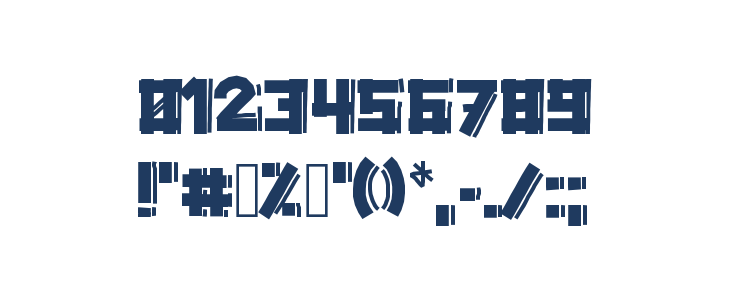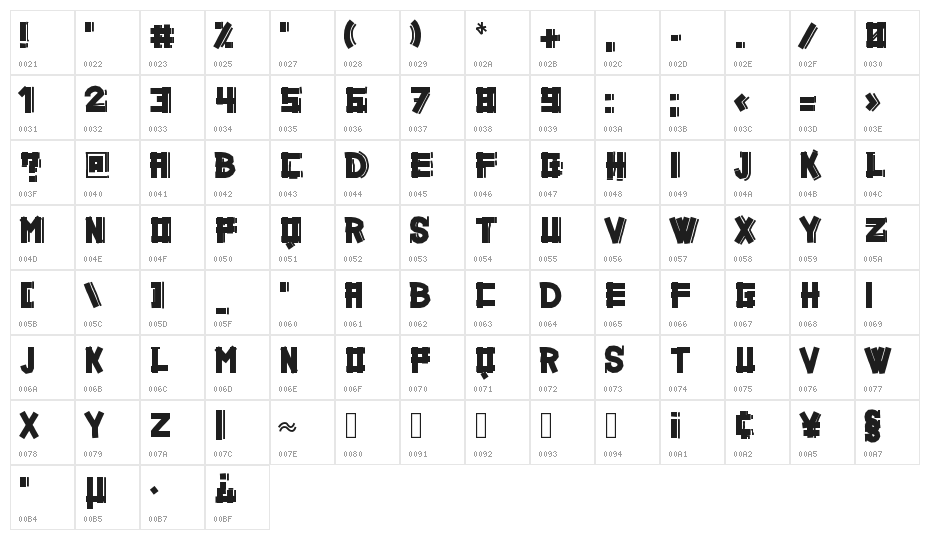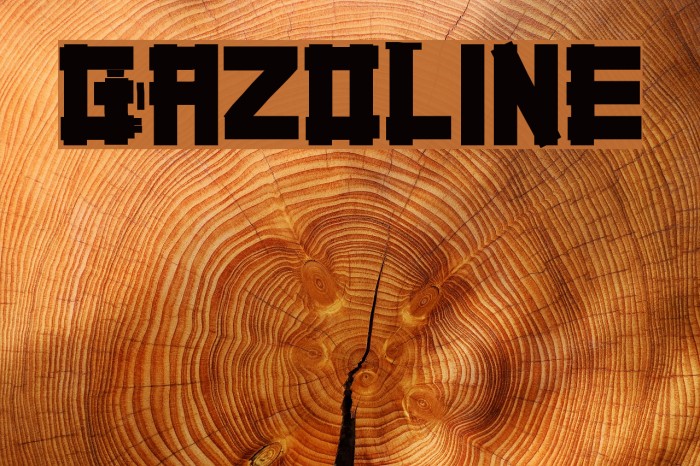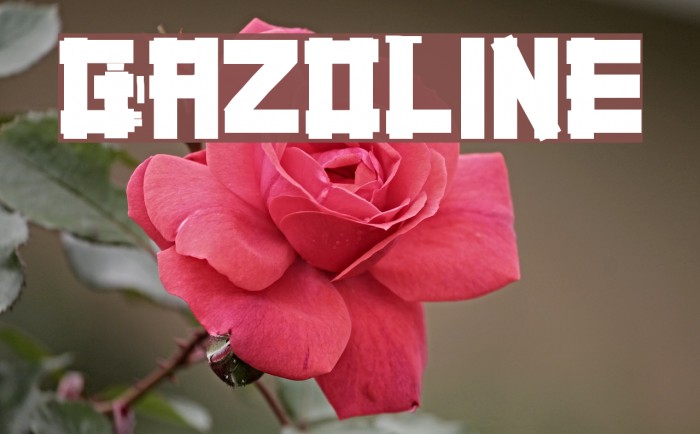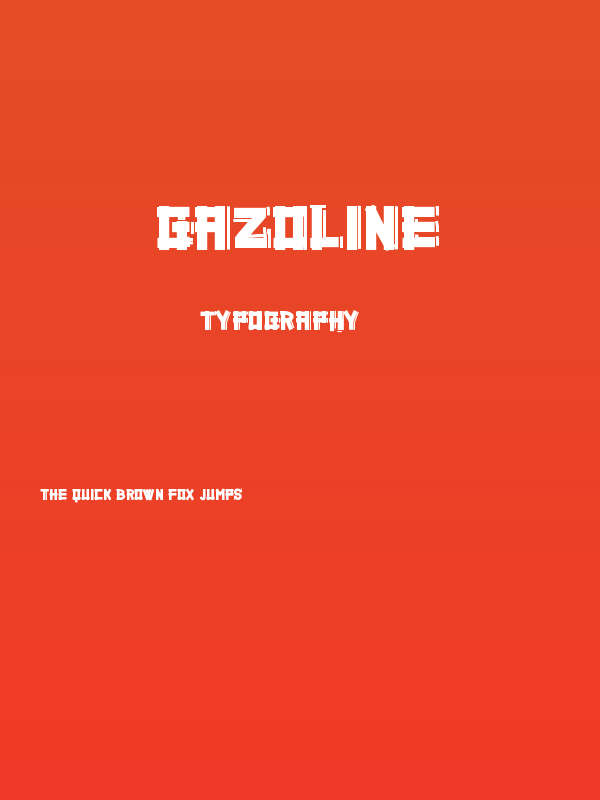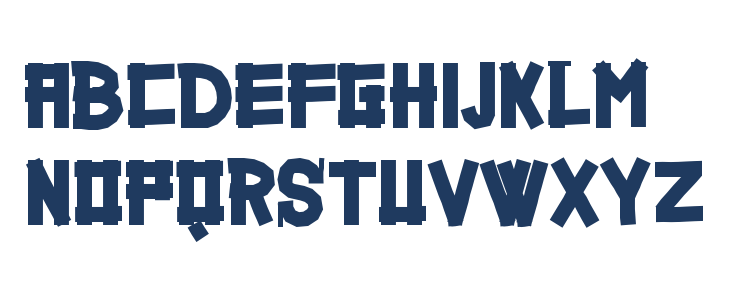
Gazoline Font
Gazoline Description
This font features a bold and striking design with a distinctly modern and industrial feel. The characters are constructed with thick, blocky strokes that give them a strong presence. The geometric shapes and sharp angles create a sense of movement and energy, making it ideal for attention-grabbing headlines or logos. The uppercase letters are particularly dominant, with a uniform height that adds to the font's robust appearance. The numbers and special characters maintain the same bold style, ensuring consistency across all text elements.
| Proposed Projects | Ideal for branding, posters, and any project needing a strong, modern look. |